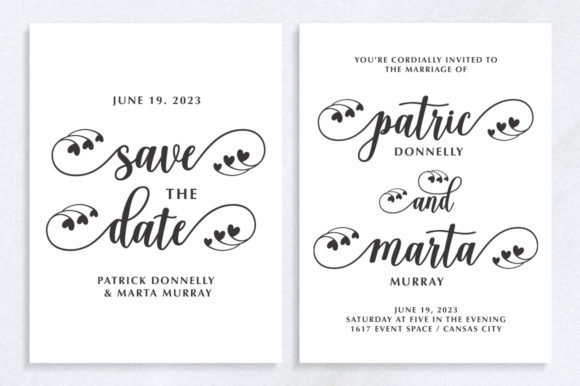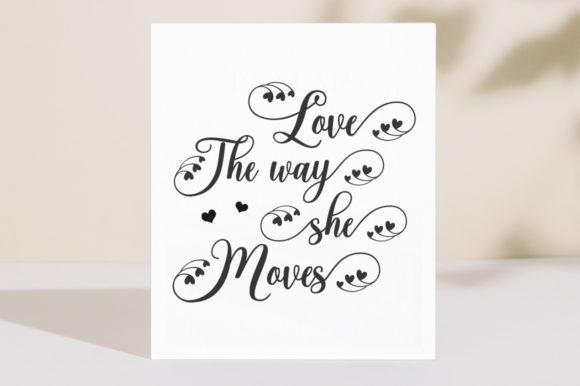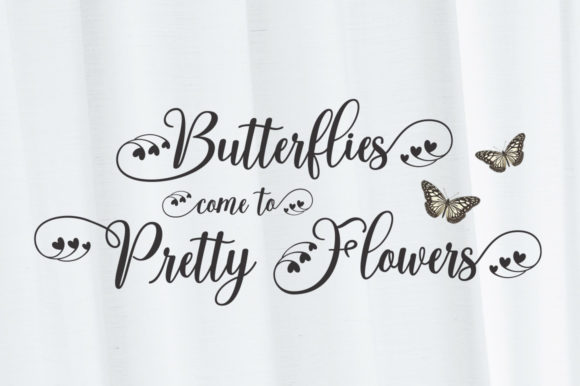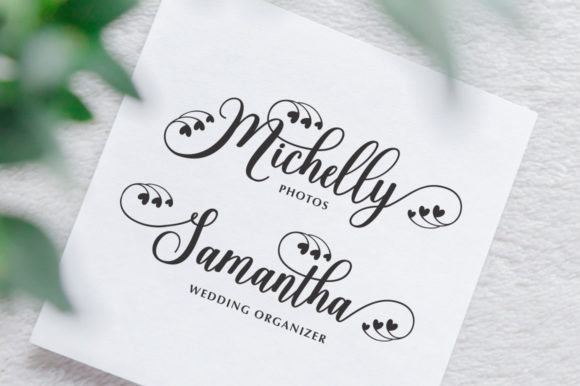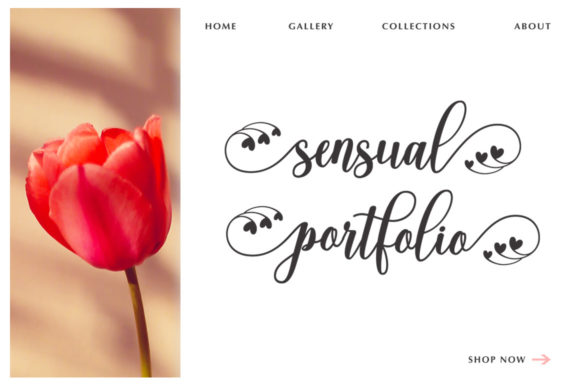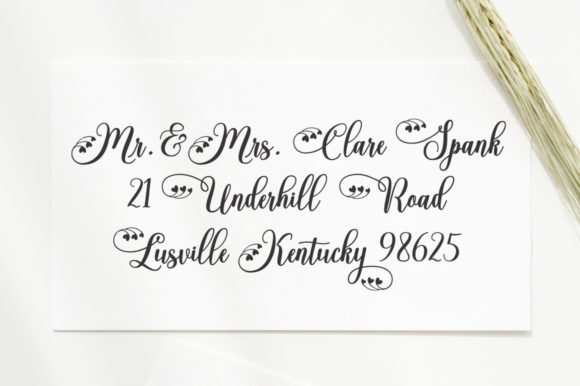
Gracilea Script Font: Elevate Your Designs with Elegance and Versatility
In the world of typography, few fonts manage to capture the essence of elegance and versatility as effectively as the Gracilea Script Font. This enchanting handwritten font has been making waves in the design community, and for good reason. With its wide spectrum of applications ranging from greeting cards to headlines, Gracilea Script is quickly becoming a favorite among designers and crafters alike.
Handwritten fonts have a unique charm that sets them apart from more traditional typography. They bring a personal touch to any design, evoking feelings of warmth and intimacy. Gracilea Script is no exception. Its fluid strokes and elegant letterforms make it perfect for a variety of projects, from formal invitations to blog posts and social media graphics.
What Makes Gracilea Script Stand Out
So, what sets Gracilea Script apart from other script fonts on the market? For starters, its versatility. This font can be used in a multitude of contexts, from:
- Headlines and titles
- Blog posts and articles
- Branding and packaging
Why Designers and Crafters Love Gracilea Script
Designers and crafters love Gracilea Script for many reasons. Here are just a few:
- Elegance: Gracilea Script adds a touch of sophistication to any design.
- Versatility: Its wide range of applications makes it a valuable addition to any design toolkit.
- Unique charm: The font’s handwritten nature gives it a distinctive, personal feel.
Tips for Using Gracilea Script
Here are a few tips for getting the most out of Gracilea Script:
- Experiment with different sizes: Gracilea Script looks great in both large and small sizes.
- Pair it with other fonts: Gracilea Script pairs well with a variety of fonts, from serif and sans serif to other script fonts.
In conclusion, Gracilea Script Font is a versatile and elegant addition to any design toolkit. Its PUA encoding, extensive character set, and handwritten charm make it perfect for a wide range of applications. Whether you’re a designer, crafter, or simply someone who appreciates beautiful typography, Gracilea Script is definitely worth checking out.